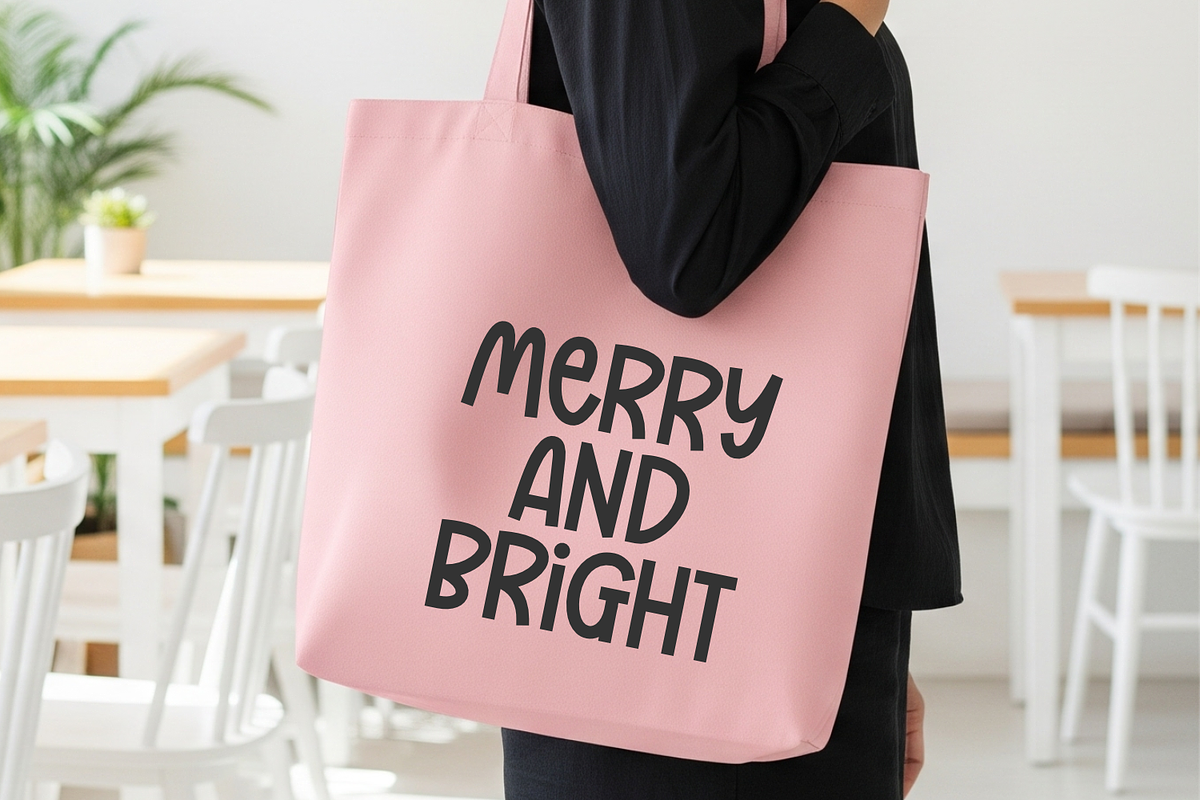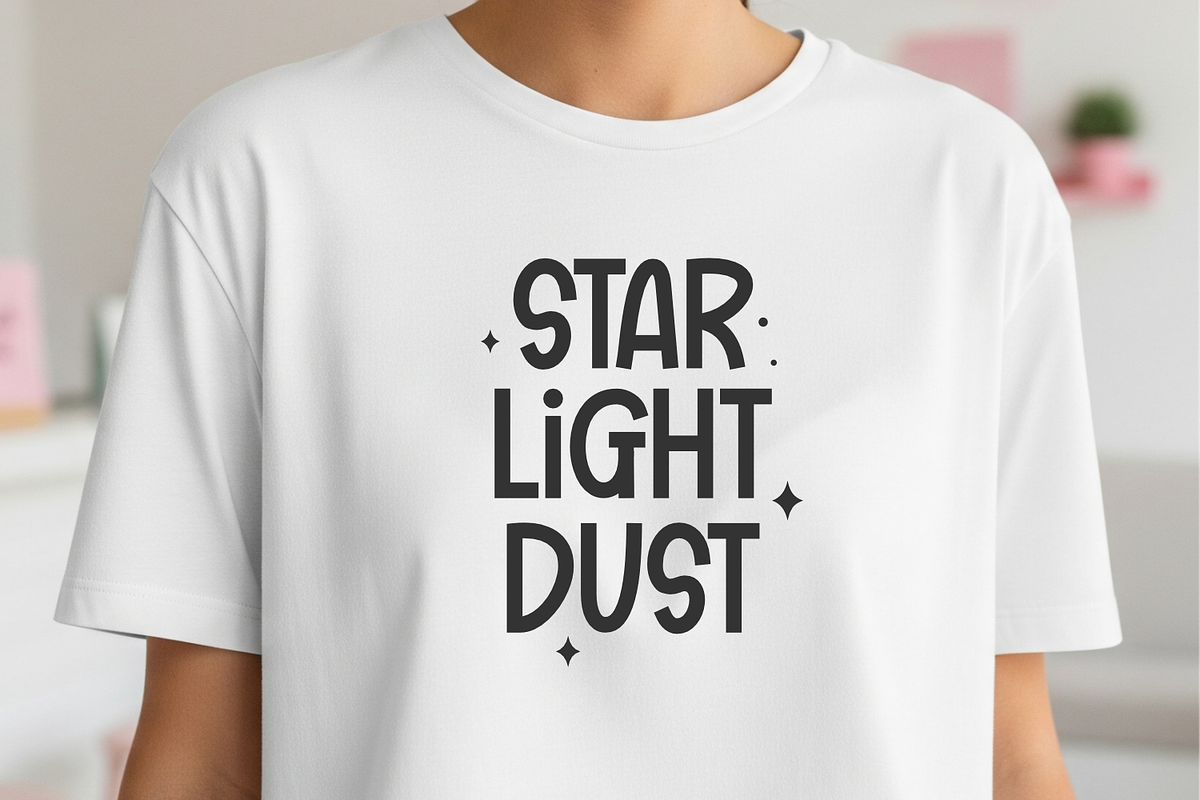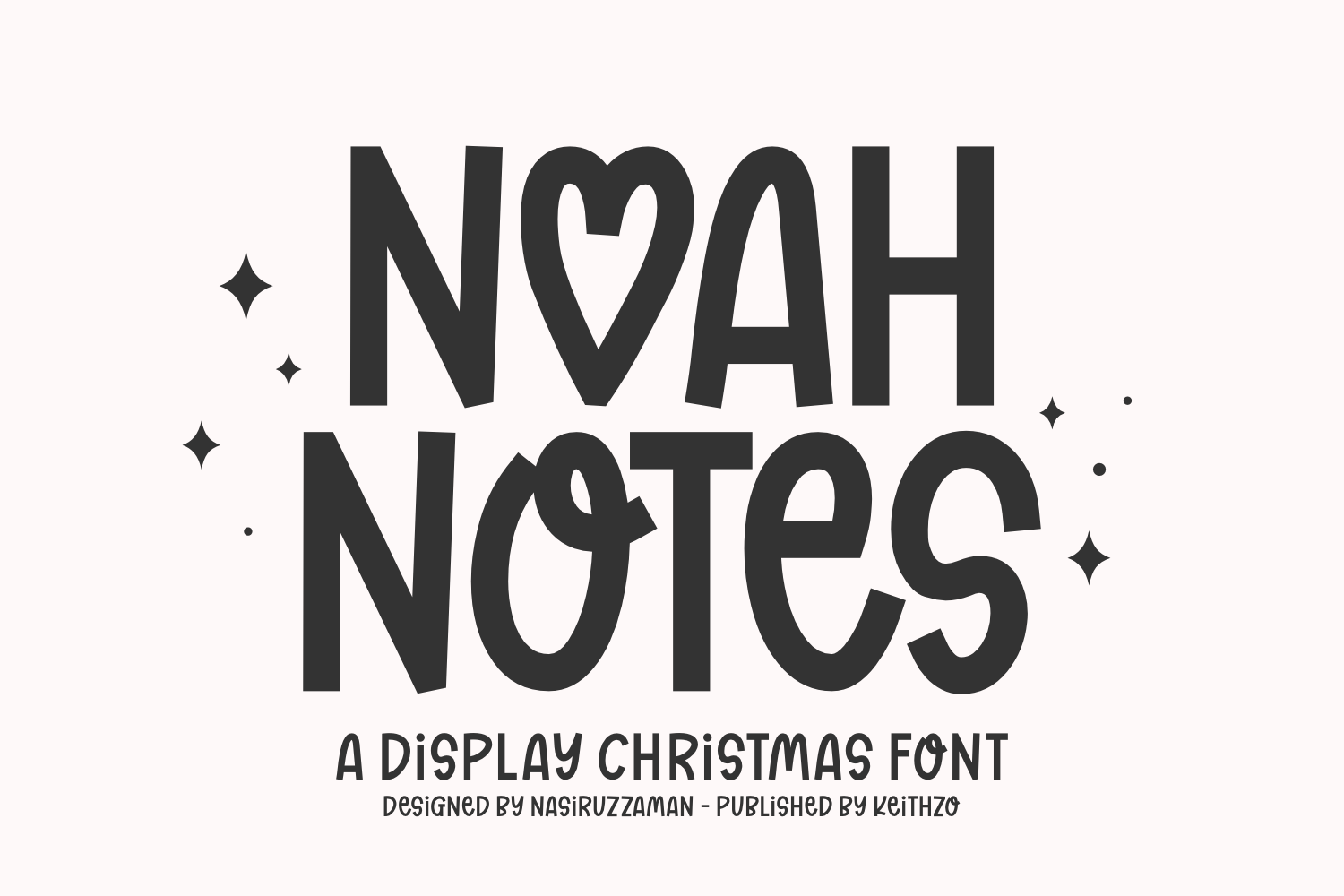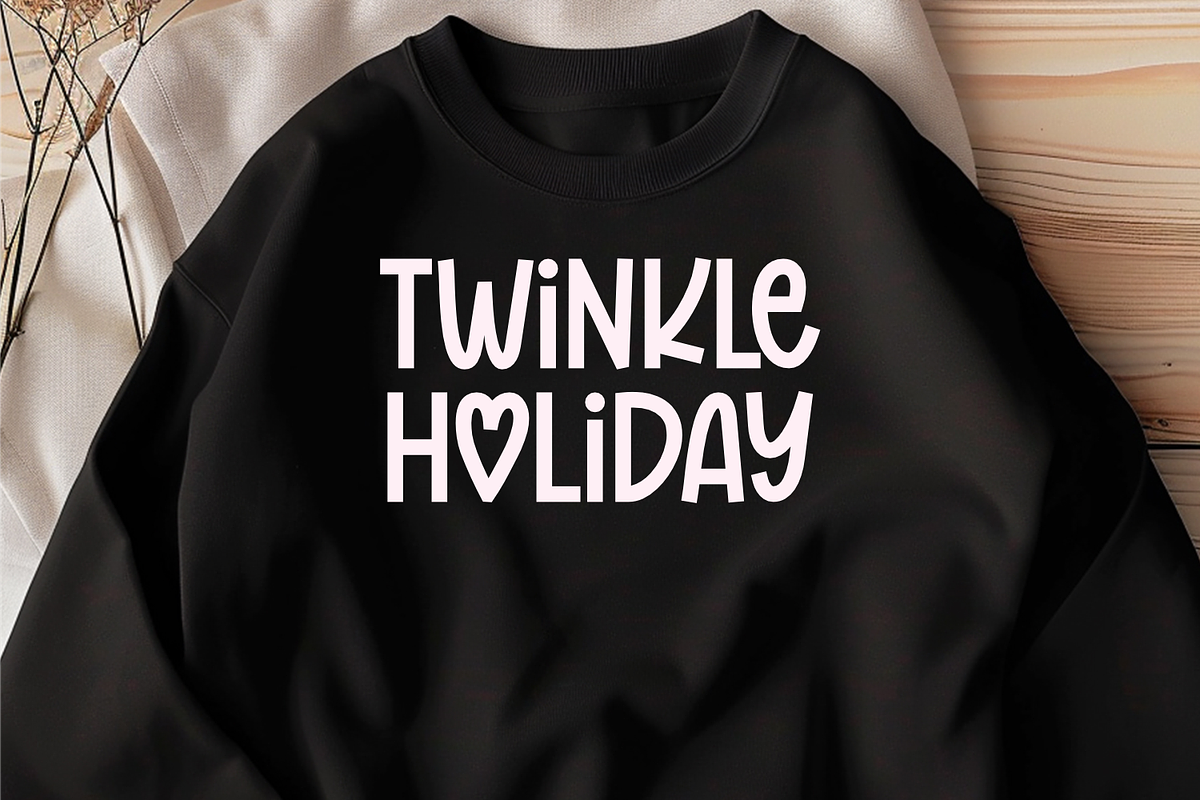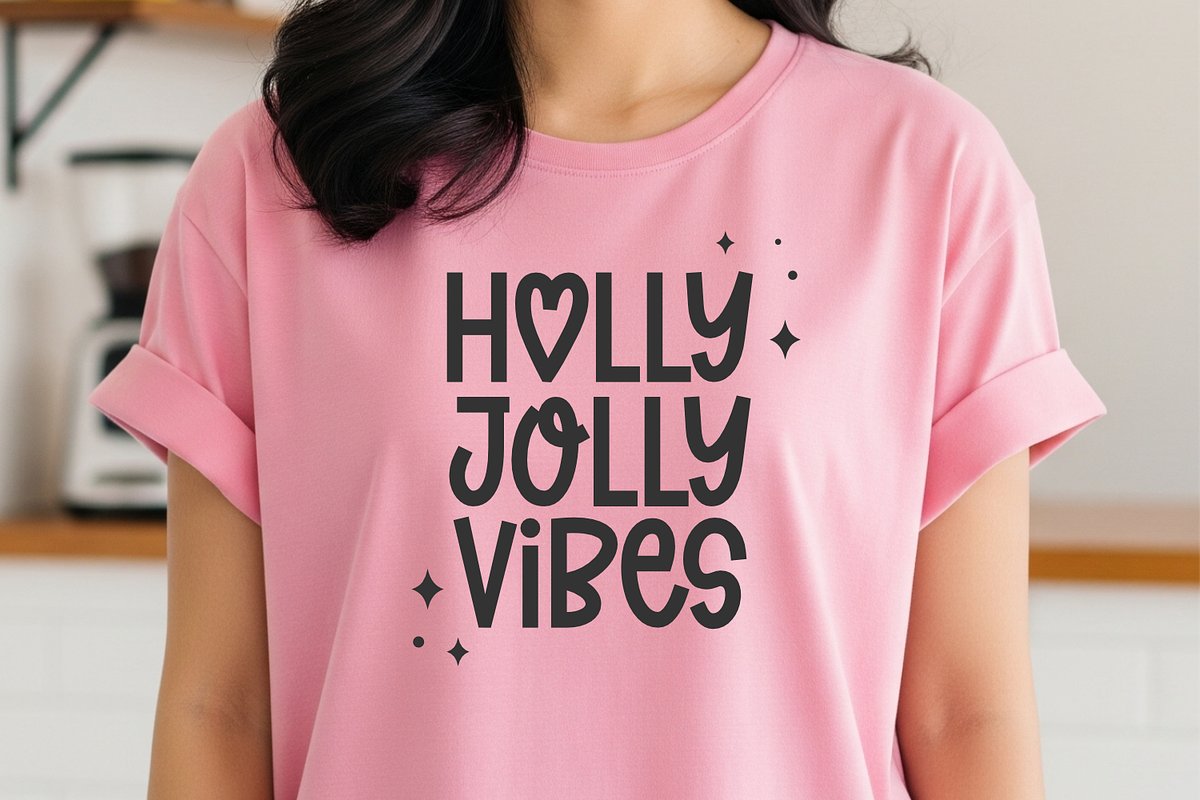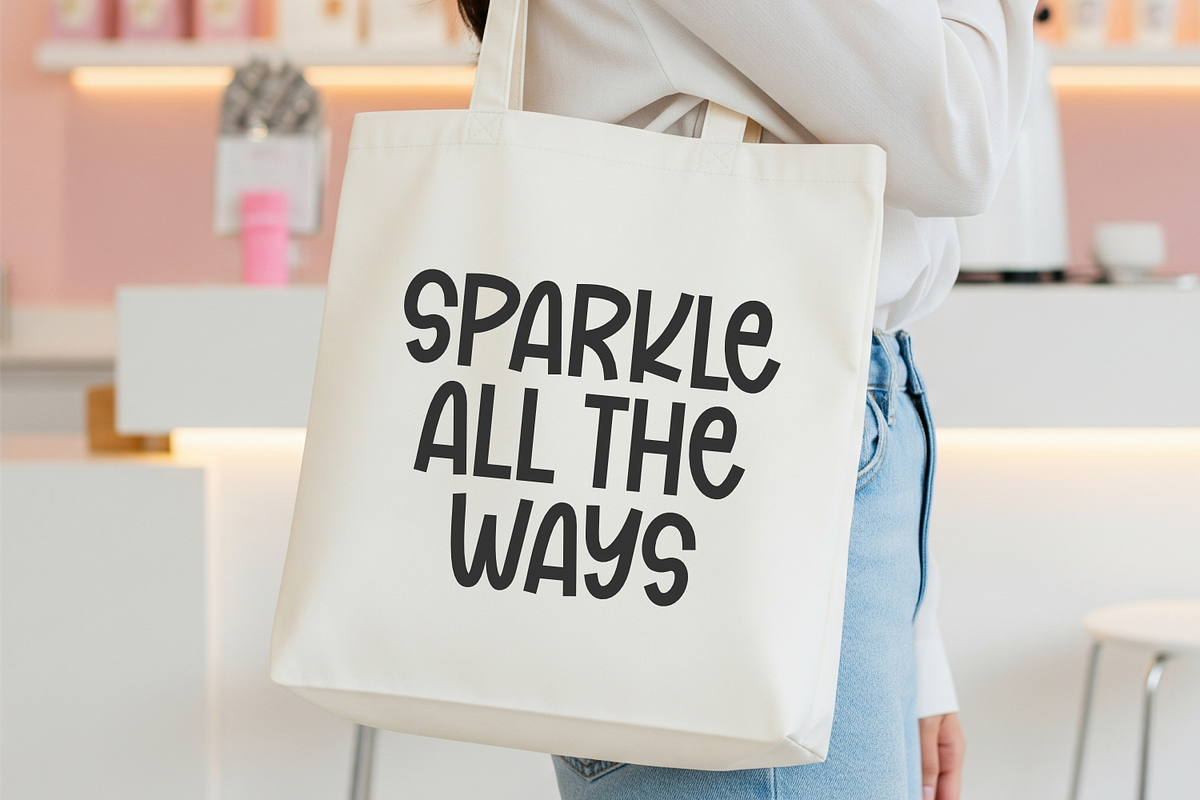
Noah Notes - Christmas Font
Introducing Noah Notes, a warm, christmas display font that wraps your holiday designs with an aura of joy and cheer. Its whimsically bold letterforms embody a homemade touch, making it quintessential for an array of projects. This font, with its mixed case, curvy letters, imparts an inviting, lighthearted feel that’s perfect for setting a relaxed, fun holiday ambiance.
Noah Notes effortlessly translates to a range of applications, from festive greetings, clothing, and christmas merchandise, to DIY craft endeavors, christmas poster and banner design, social media visuals, and christmas designs for kids. Sprinkle a dash of sparkle and a hearty dose of character into your next project with Noah Notes!